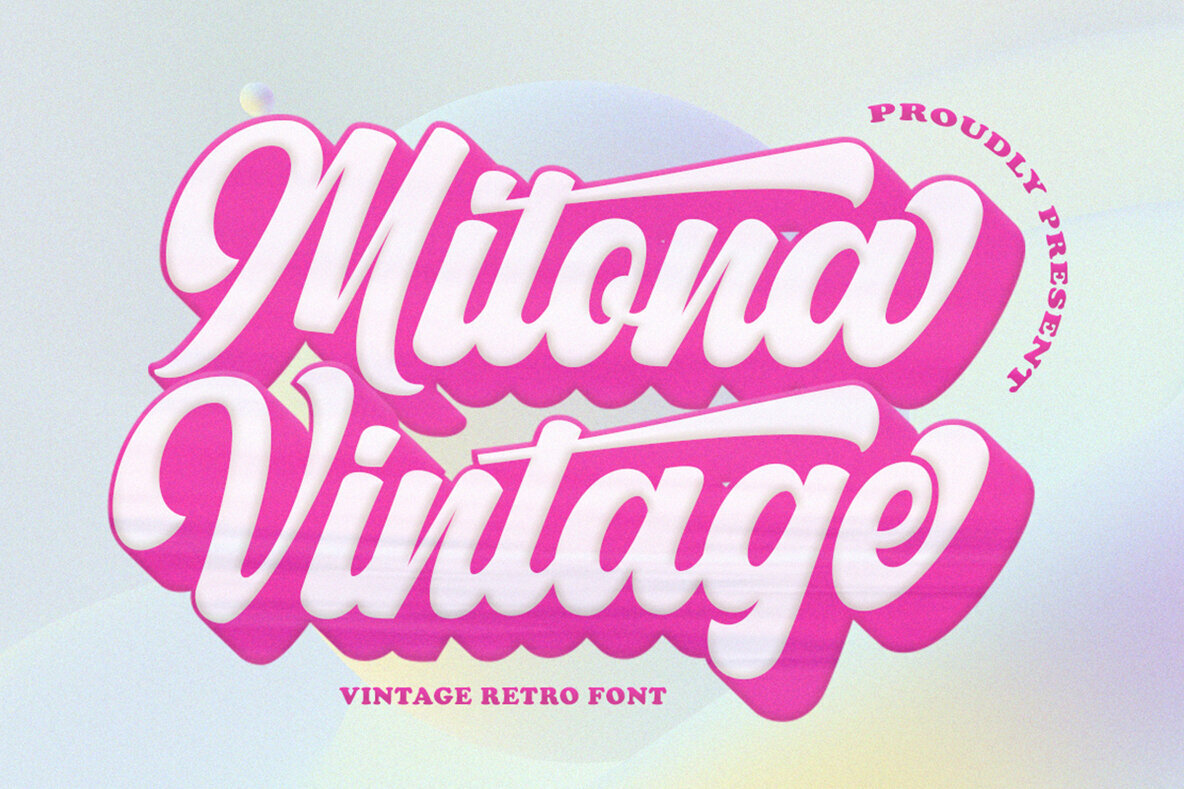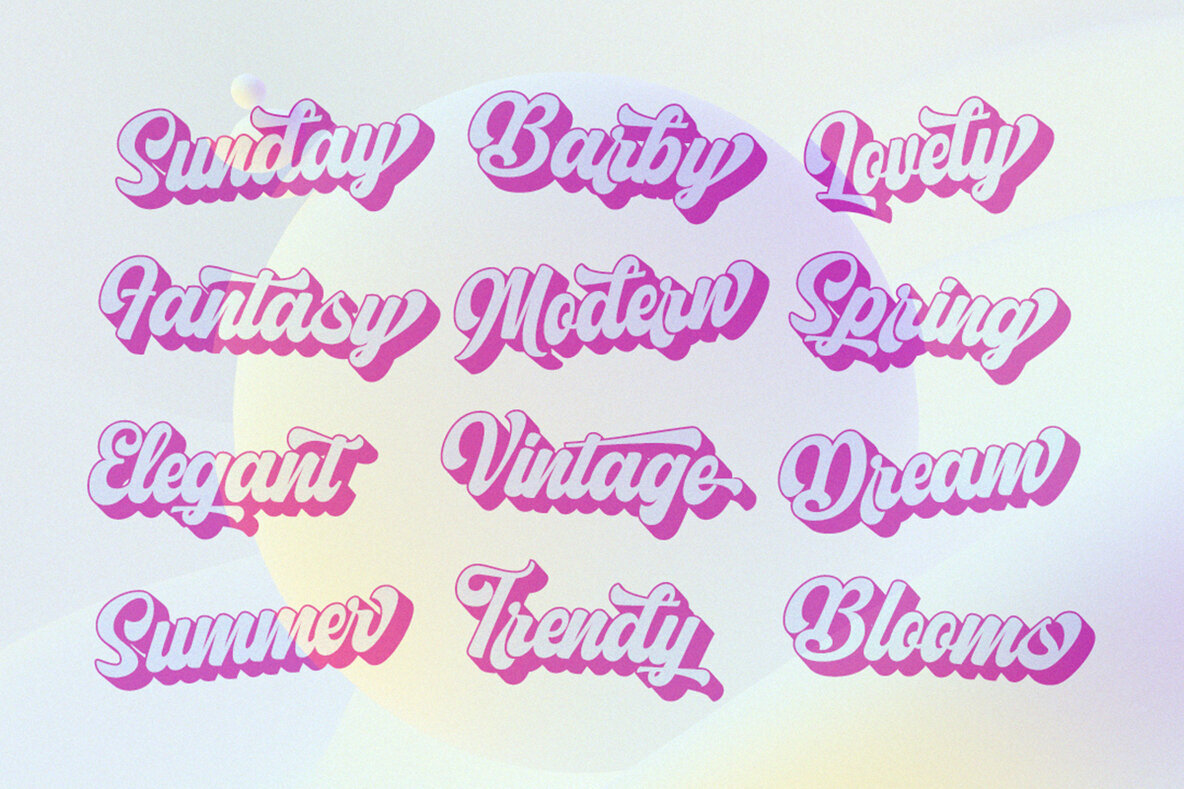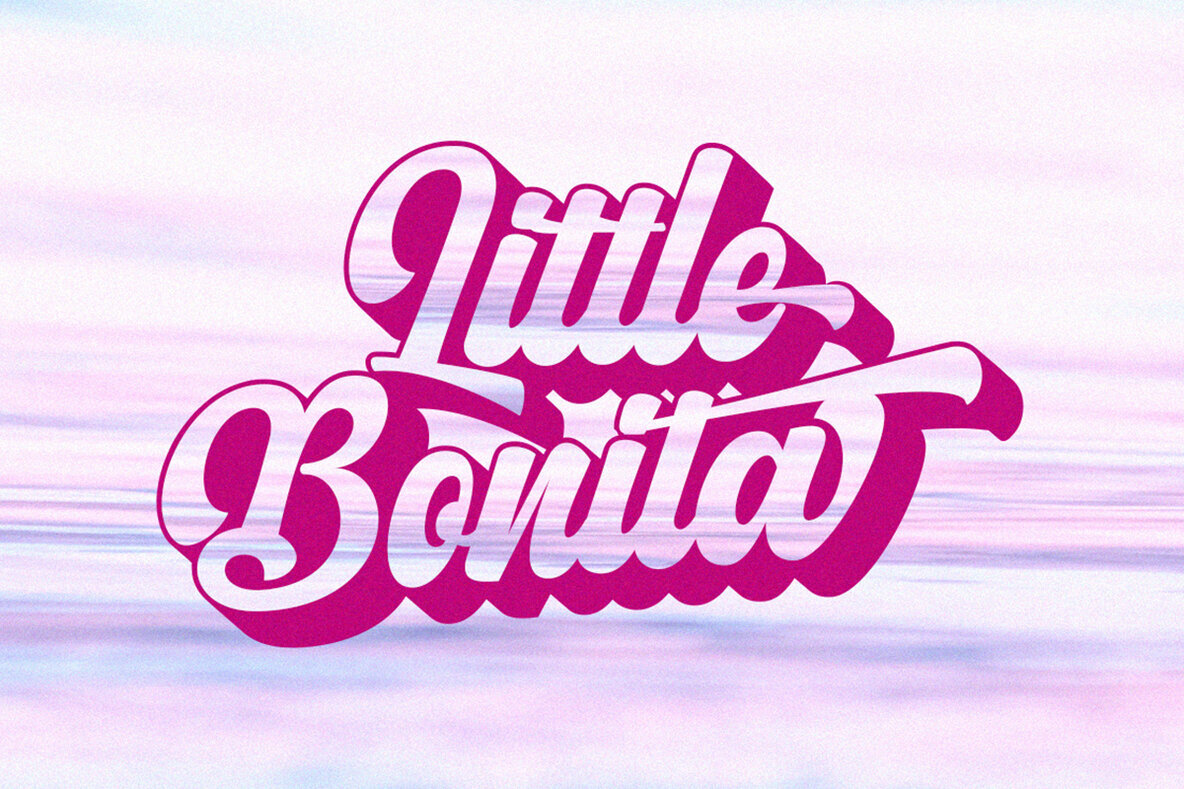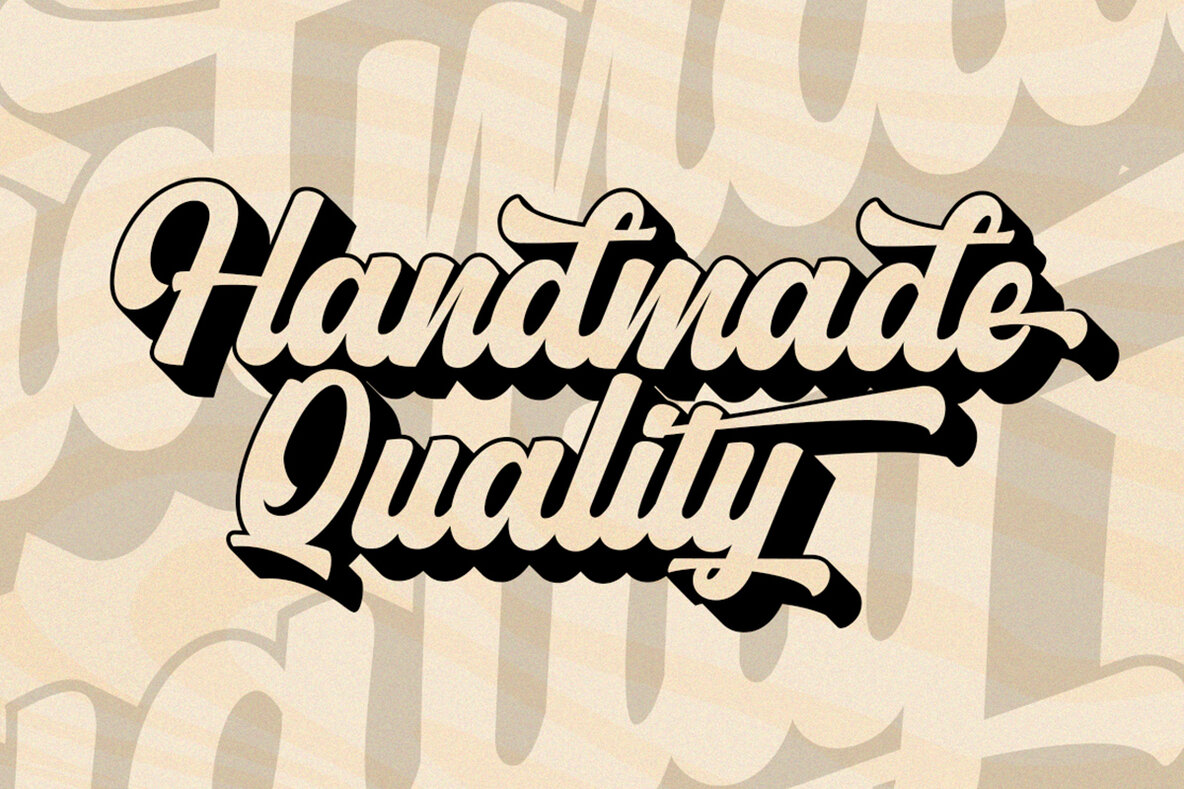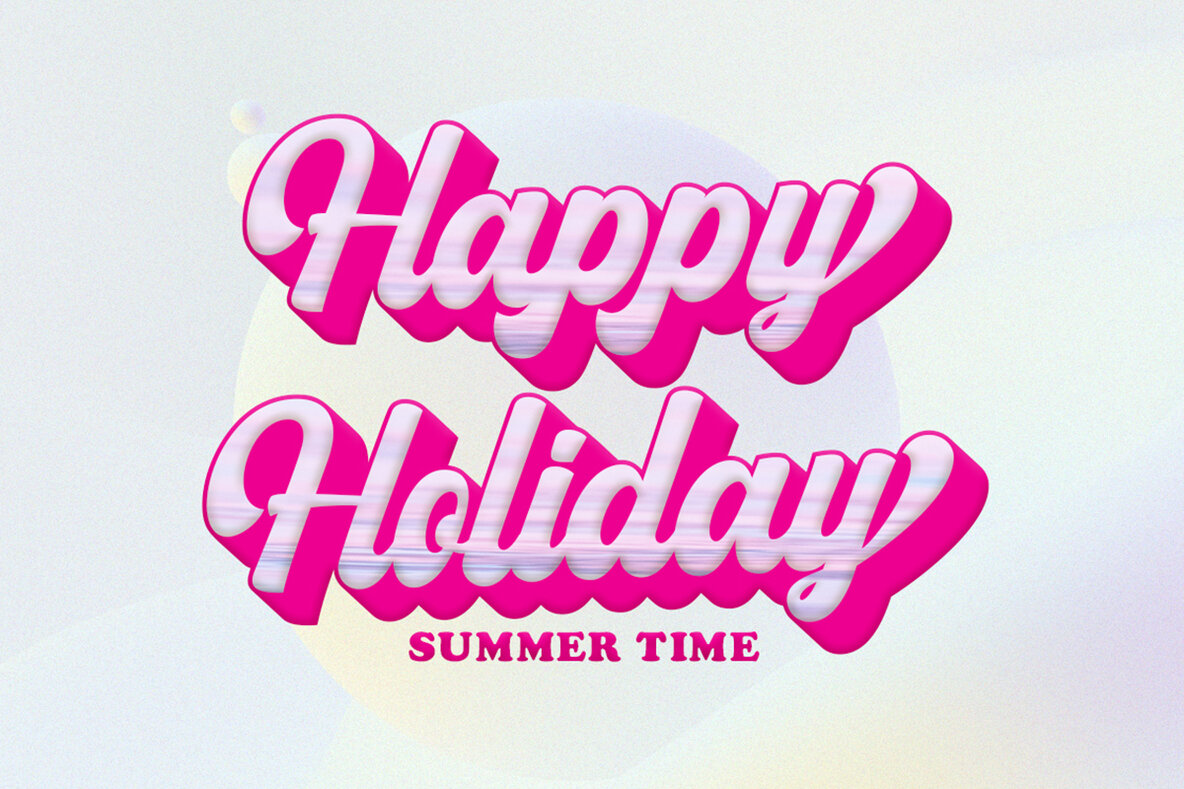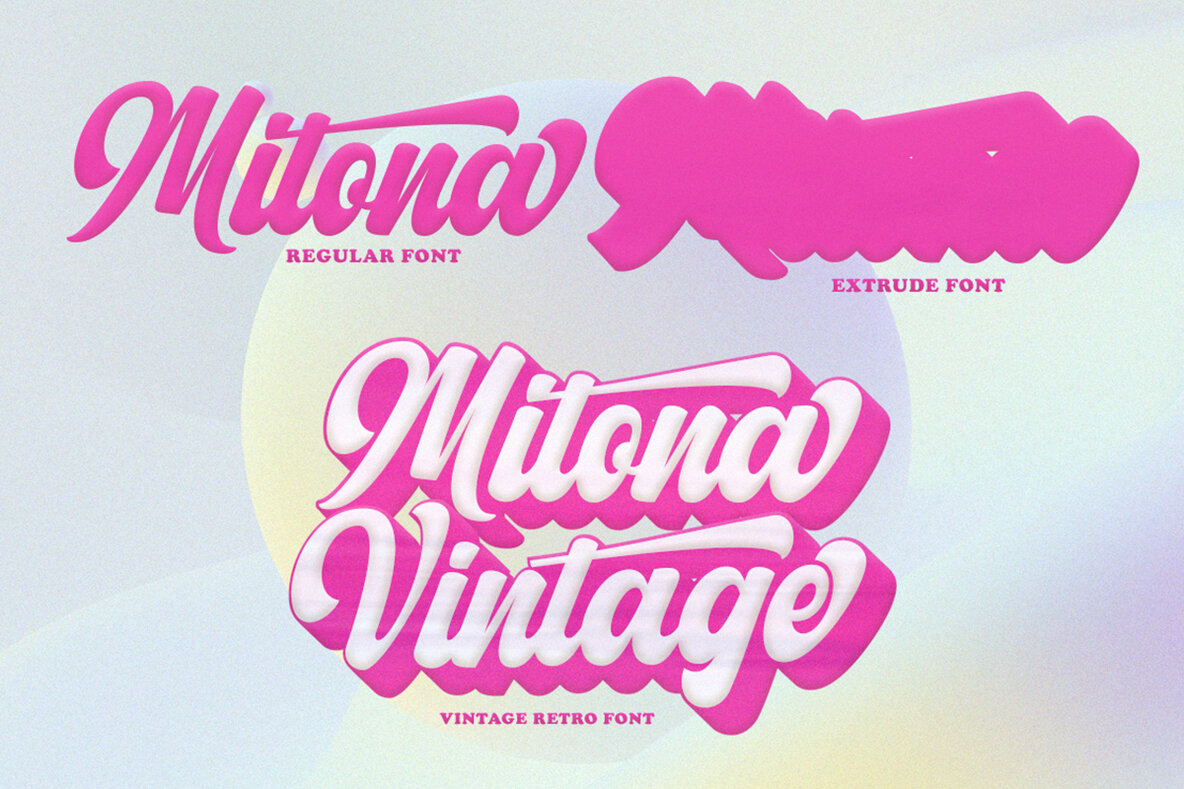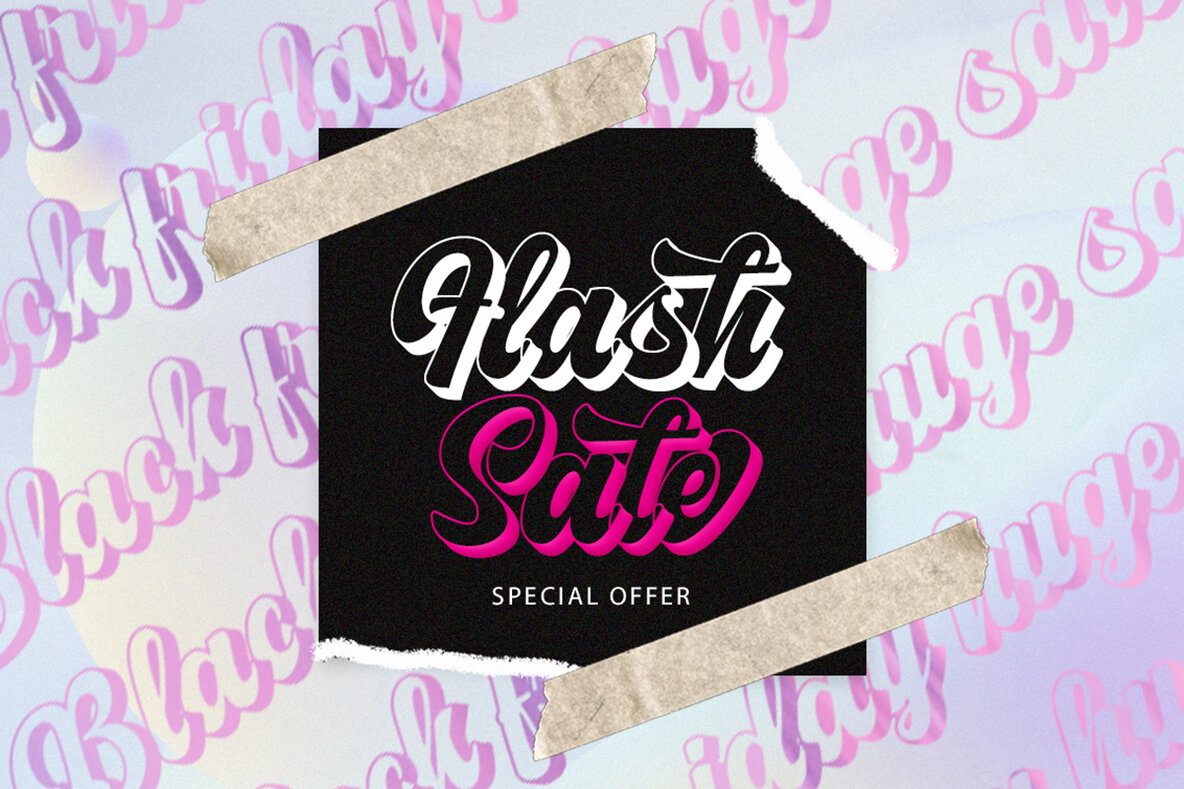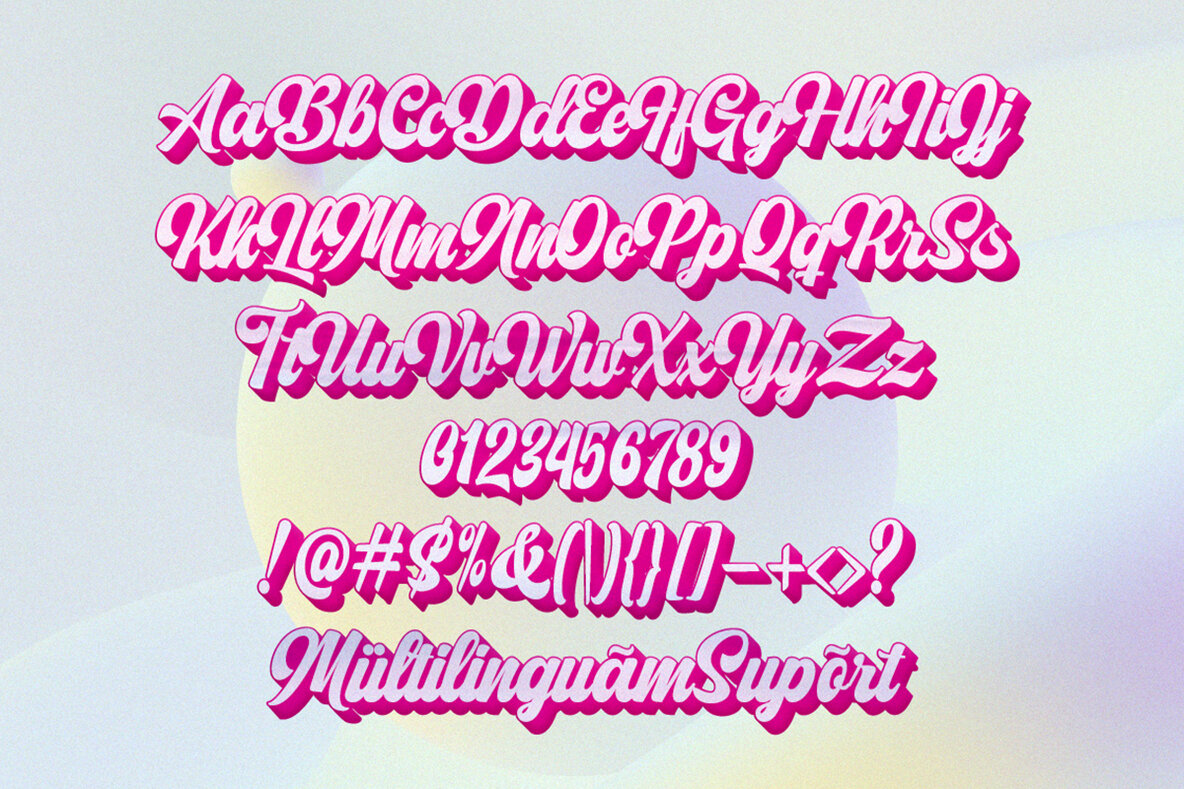
Mitona Vintage Font
Mitona Vintage by LetterFresh Studio is a versatile retro font designed to enhance your brand identity and logotype design. With a classic letterform style, it’s crafted for those seeking a nostalgic touch in their creative projects. This typeface offers extensive language support, covering both European and Asian Latin scripts, ensuring global accessibility. The Mitona Vintage collection includes various styles—Regular, Extrude, Antique Shadow, Outline, Serif Regular, Serif Outline, and Serif Italic. By utilizing compatible software like Adobe Illustrator or CorelDraw, designers can easily access Stylistic OpenType alternatives to elevate their projects.Mitona Vintage Font